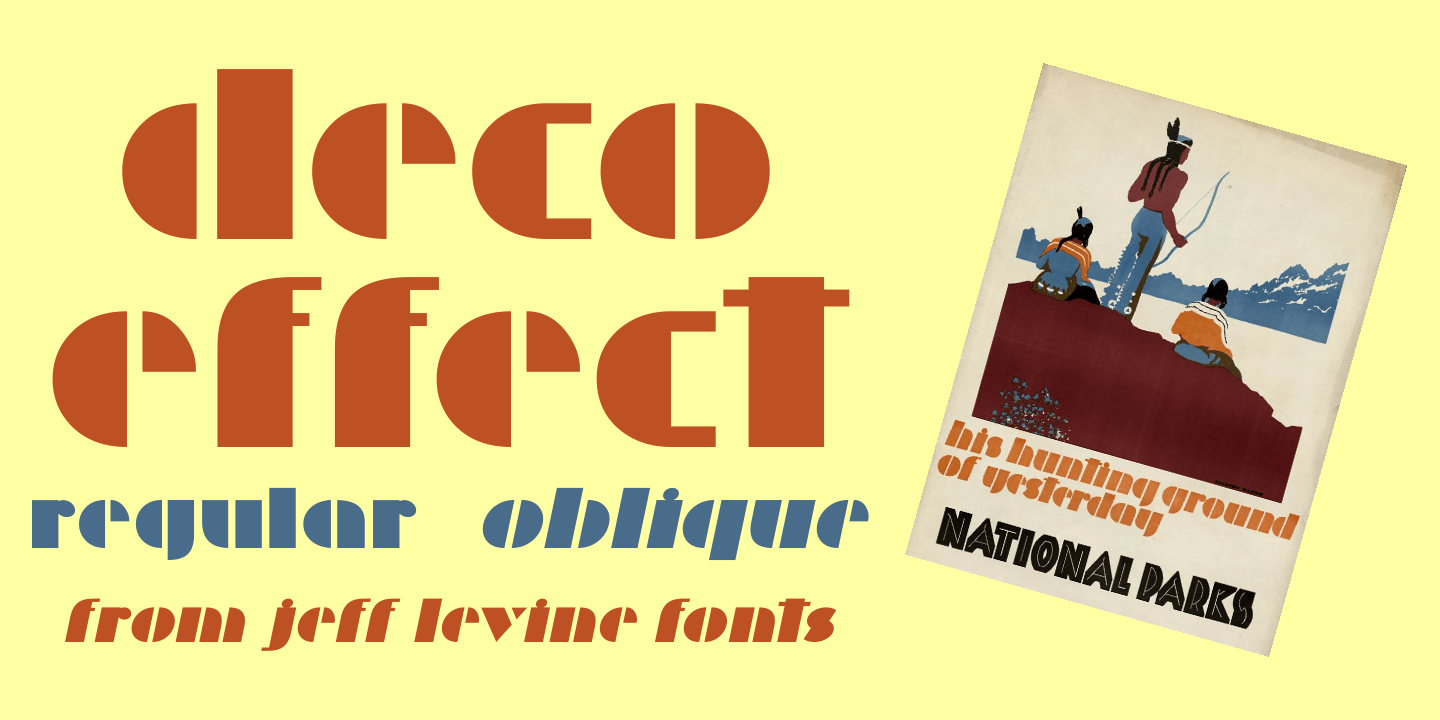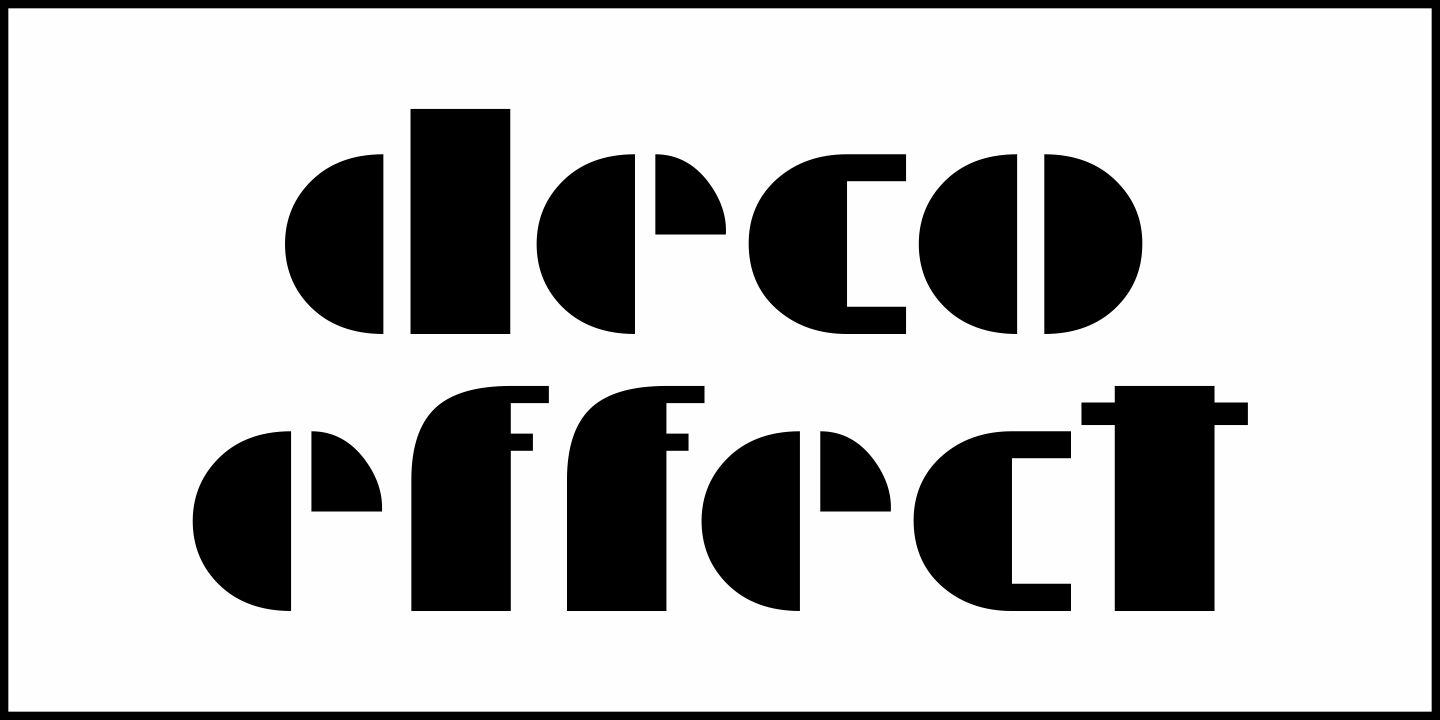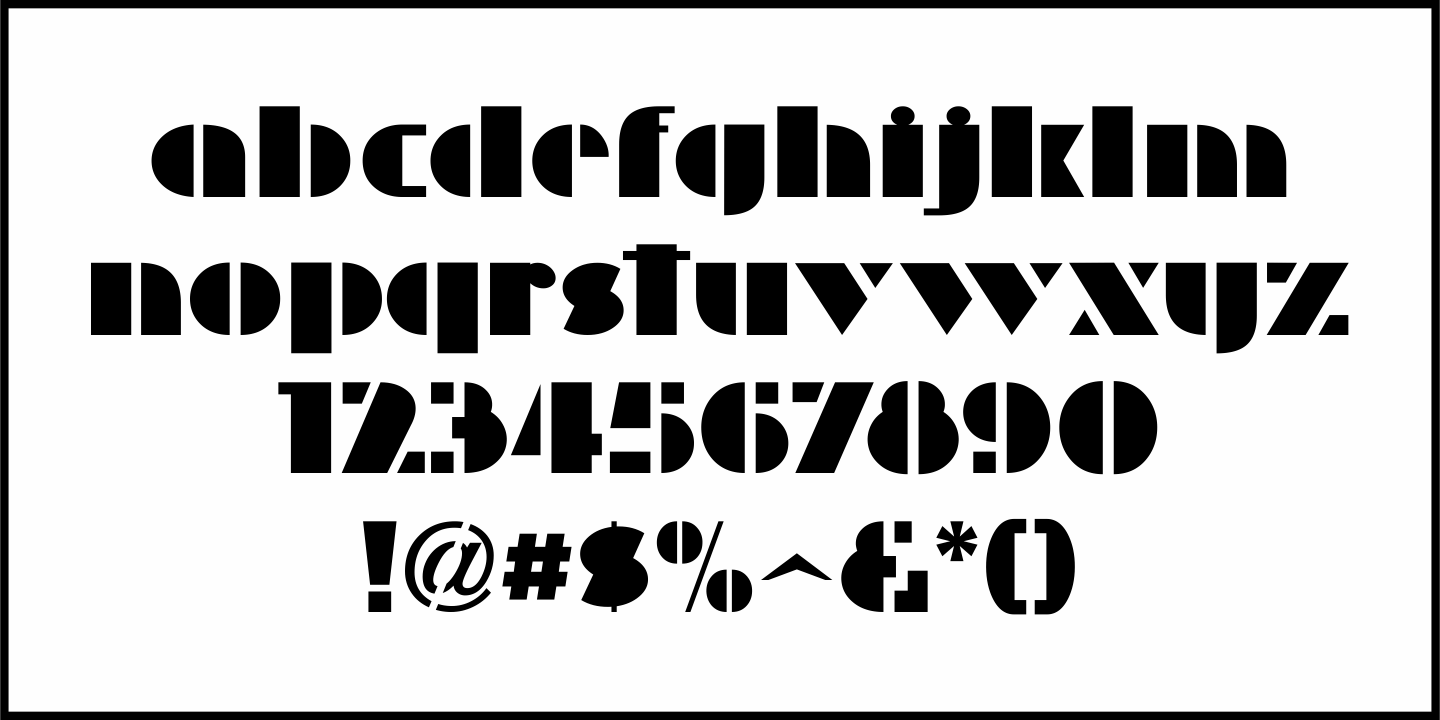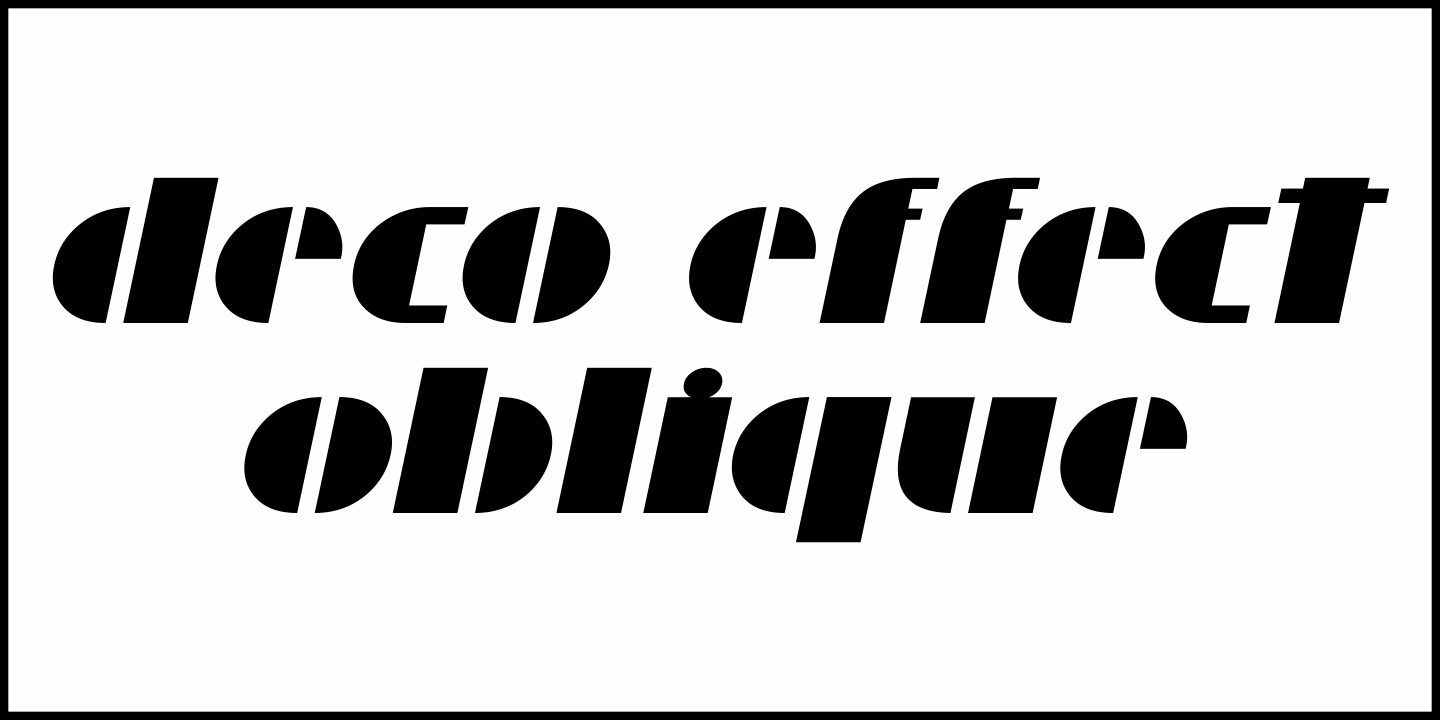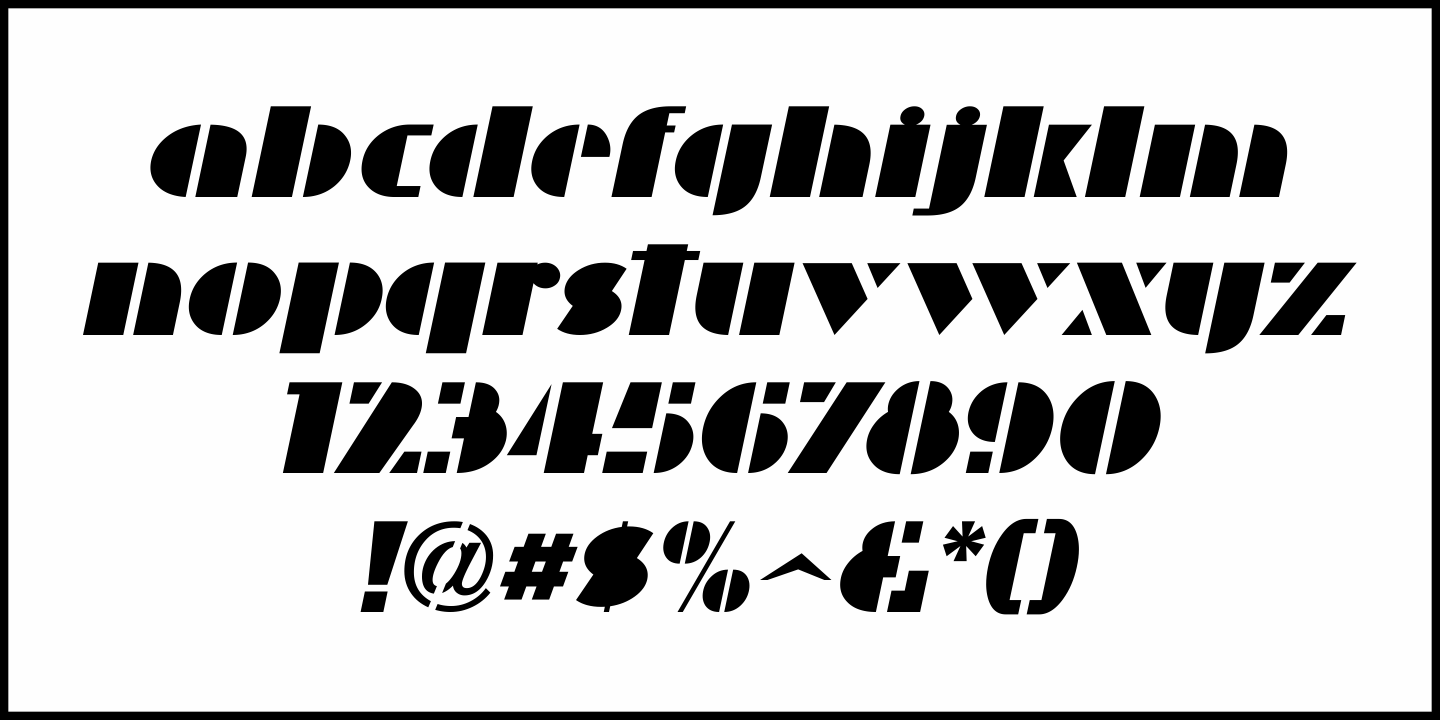
Deco Effect
A National Parks poster created and hand lettered by Dorothy Waugh in 1934 featured text in an oblique style strongly influenced by Futura Black.  Entitled "His Hunting Ground of Yesterday", Waugh breaks with typesetting norms and designed the poster with only lower case characters.
Now available digitally as Deco Effect JNL in both regular and oblique versions, this ultra bold typeface can be paired with any similar font for continuity, or used alone in lower case for attention-getting effect.